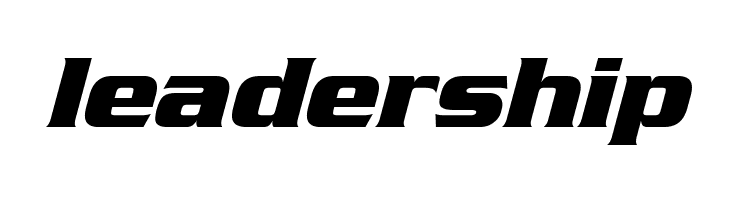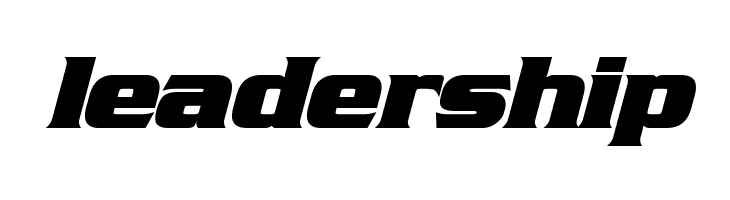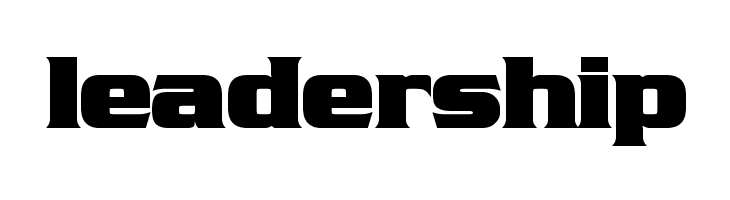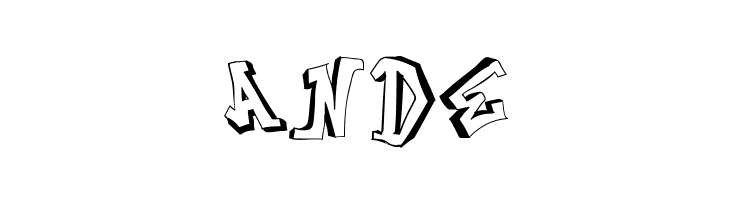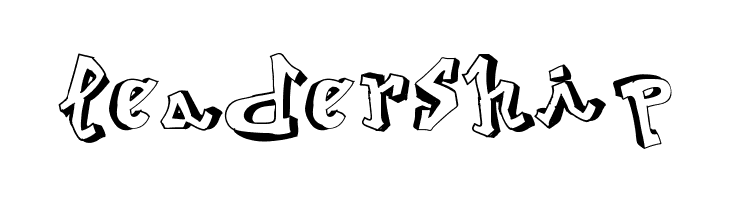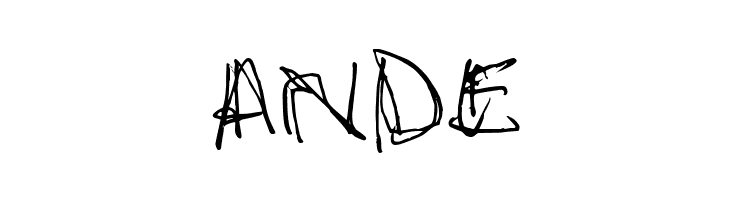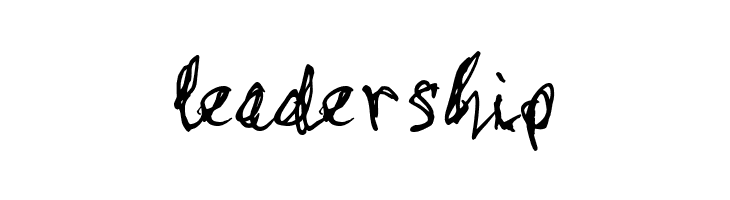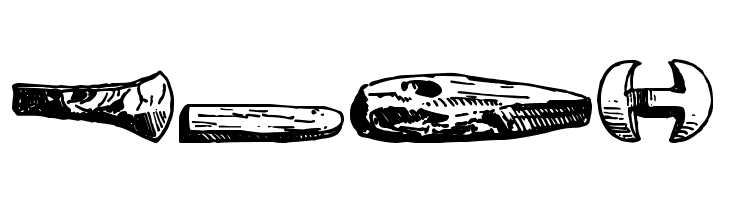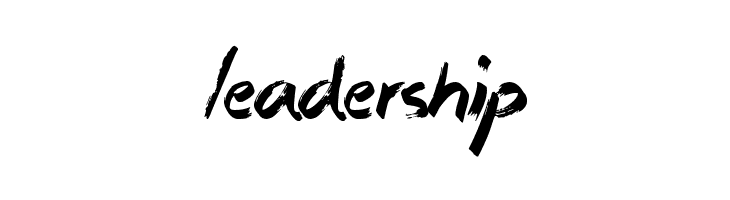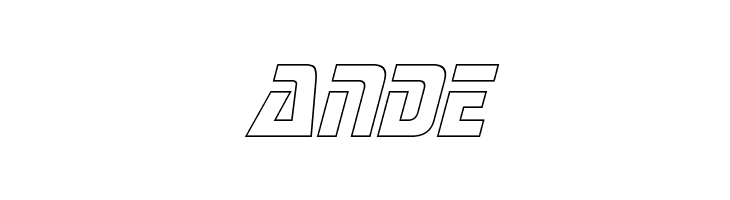
• Stencil Army WW I
A bold, distressed stencil font with a vintage military style.
• Stencil Cargo Army
A bold, distressed stencil font with a military-inspired design.
• Stencil Style New
A bold, distressed stencil-style font with an industrial look.
• Stencylette
A bold, geometric stencil font with high contrast and industrial style.
• step forward
• Sterling Keys
A bold, hand-drawn font with a playful and artistic style.
• Sternbach
• Sternbach Bold
A bold, geometric font with strong, angular shapes and a modern style.
• Sternbach Bold Italic
A bold, italicized font with a modern, dynamic style and strong visual impact.
• Sternbach Hollow
A bold, geometric hollow font with a modern, technical aesthetic.
• Sternbach Hollow Italic
A hollow, italic font with a futuristic and dynamic style.
• Sternbach Italic
A bold, italic font with a modern, dynamic style and strong visual impact.
• Sternbach Outline
• Sternbach Outline Italic
• Sticky Things
A bold, brush-style font with dynamic, expressive strokes.
• Stone Army
• StoneBird
A distressed serif font with a textured, weathered appearance.
• StonedHeights
A bold, textured font with a cracked stone appearance.
• stonehandSaul_TRIAL
An expressive and dynamic handwritten font with irregular, textured strokes.
• stonehandSaul_TRIAL
A bold, expressive handwritten font with dynamic strokes and irregular forms.
• Stop It
A bold, thick font with rounded edges, perfect for impactful headlines.
• Storm
A bold, angular font with a geometric and modern graffiti-inspired style.
• Story Telling